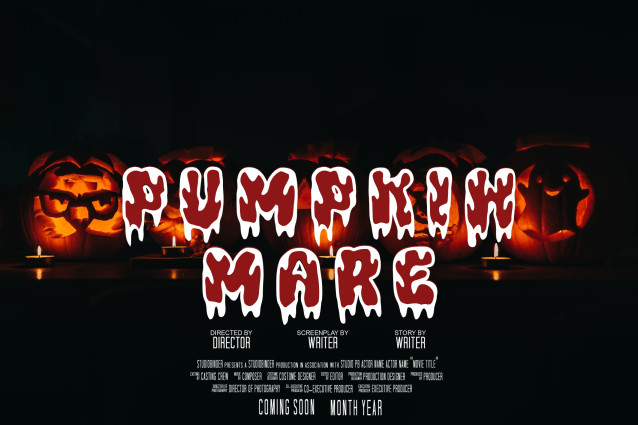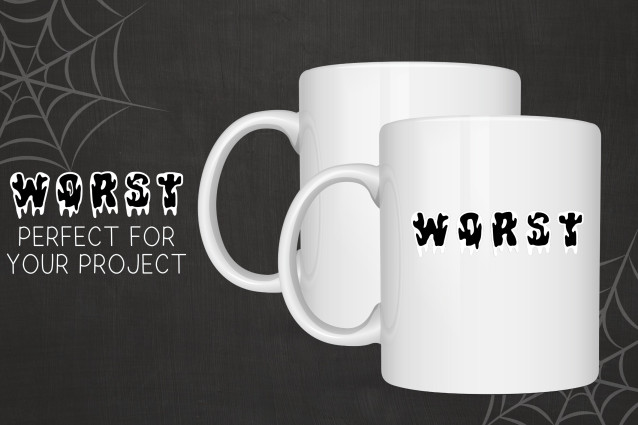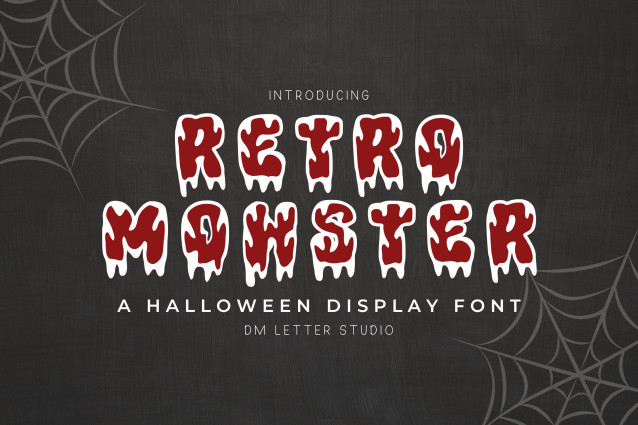
Retro Monster Font
Retro Monster Font is a quirky and bold display font that blends retro cartoon charm with a spooky monster twist. Designed with fun, jagged edges and playful character, this font is perfect for Halloween party invitations, trick-or-treat bags, haunted house signage, and kid-friendly horror themes. Its retro-inspired forms bring nostalgic vibes with a touch of spooky fun.